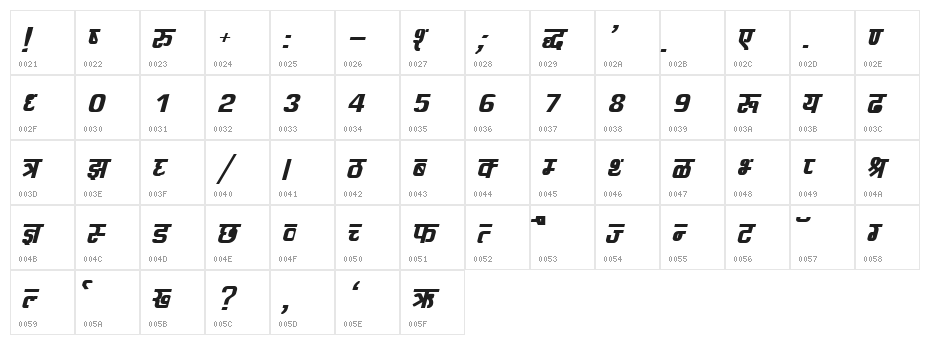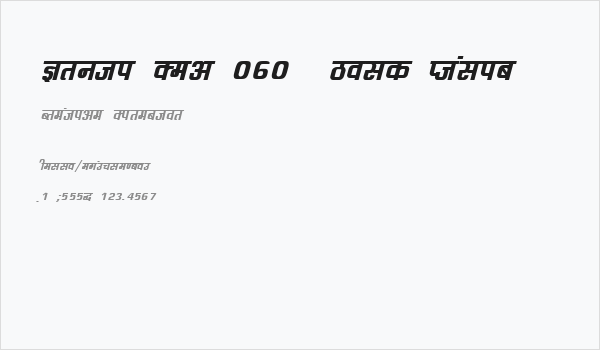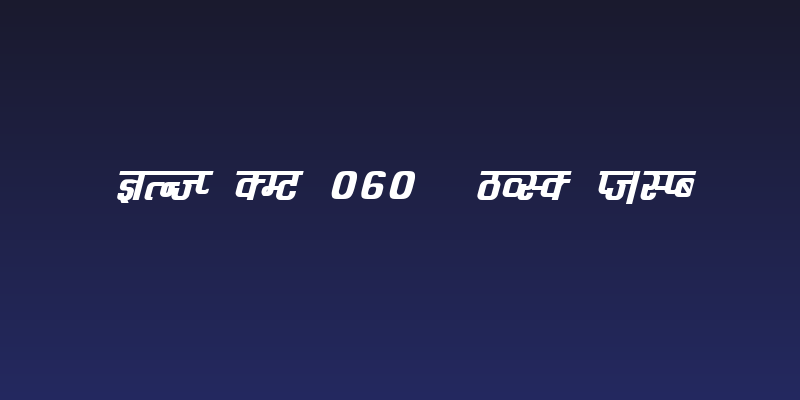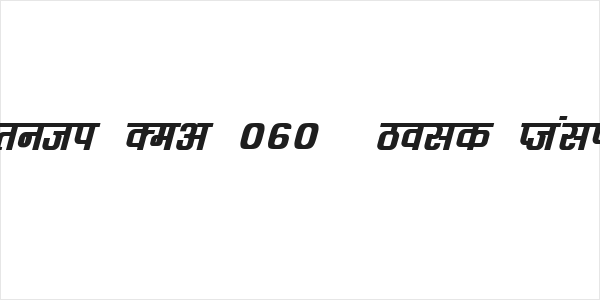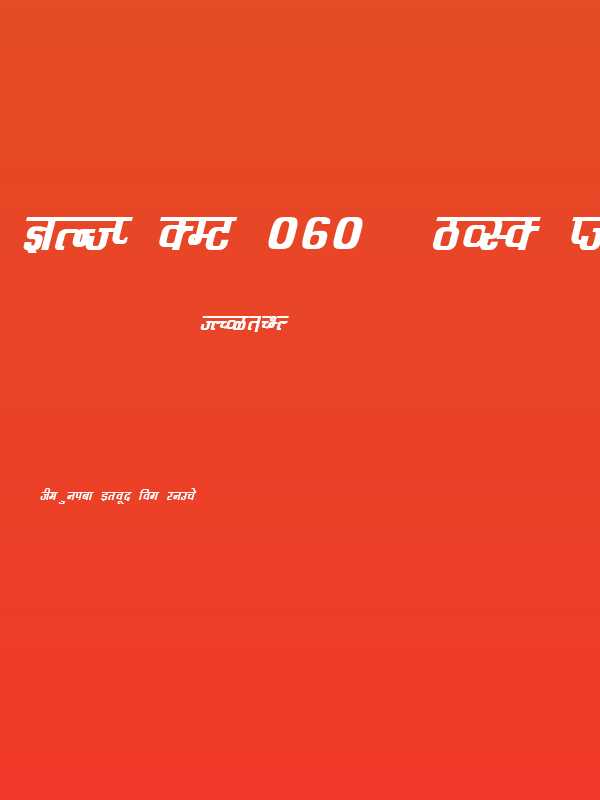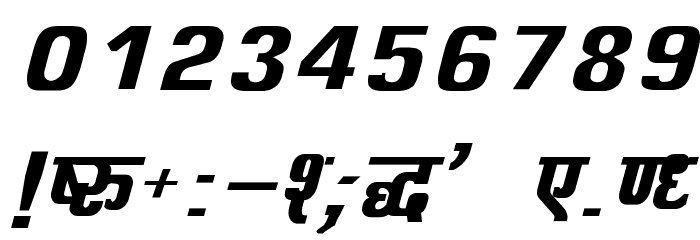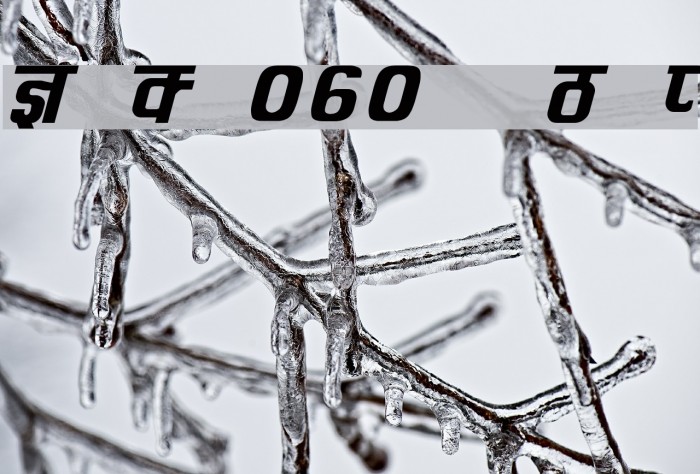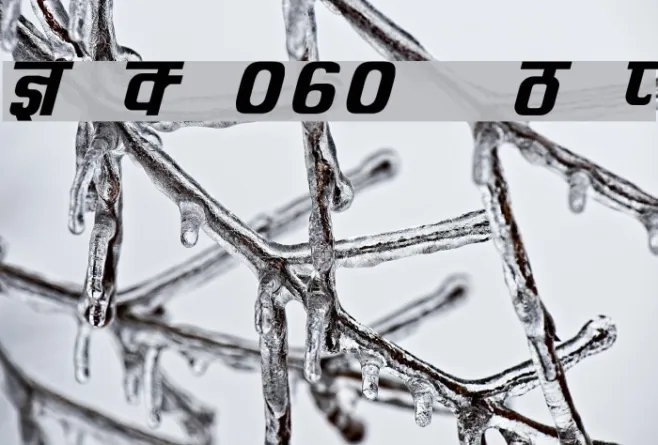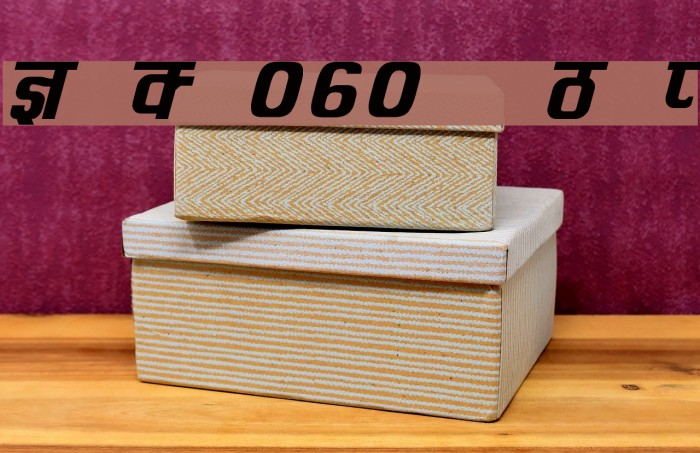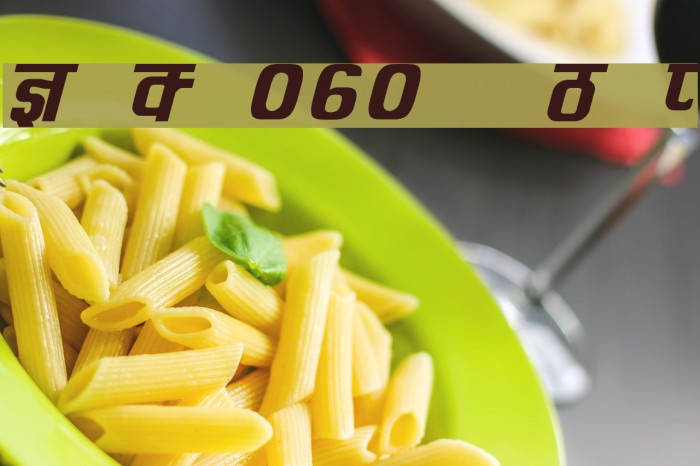
Kruti Dev 060 Bold Italic Font
Kruti Dev 060 Bold Italic Description
This font exhibits a bold and italicized style with a distinct slant, giving it a dynamic and energetic appearance. The characters are well-defined with a strong presence, making them stand out prominently. The strokes are thick, contributing to the boldness, while the italic angle adds a sense of movement and fluidity. The font maintains a consistent weight throughout, ensuring readability despite its decorative nature. The spacing between characters is moderate, allowing for clear distinction while maintaining a cohesive look. This font is particularly suitable for creating impactful headlines or titles that require attention.
| Proposed Projects | Ideal for headlines, posters, advertisements, and any project needing a bold, attention-grabbing typeface. |